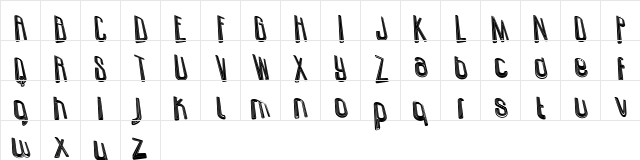
uzunduraz dirty Regular
| Designer | Mahir Huseynov |
Design Context for uzunduraz dirty Typeface
uzunduraz dirty is a composed and adaptable typeface that performs quietly and consistently across a wide range of design contexts.